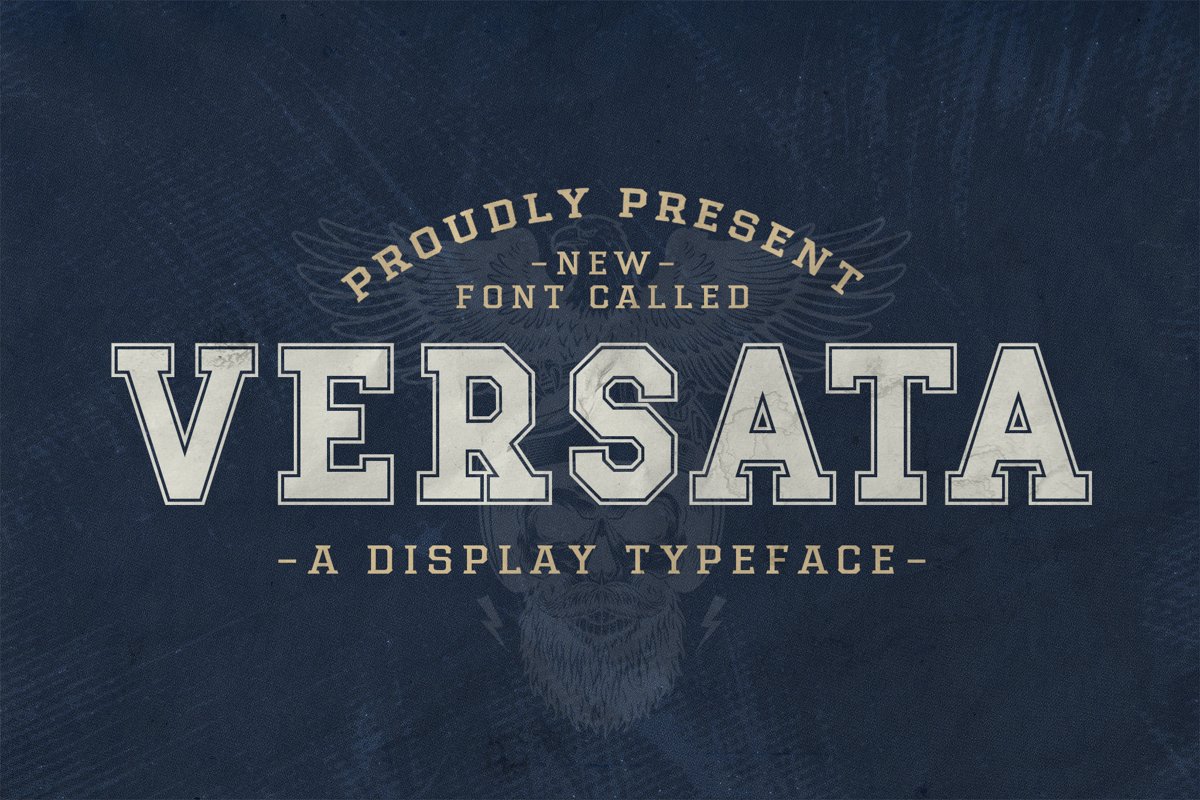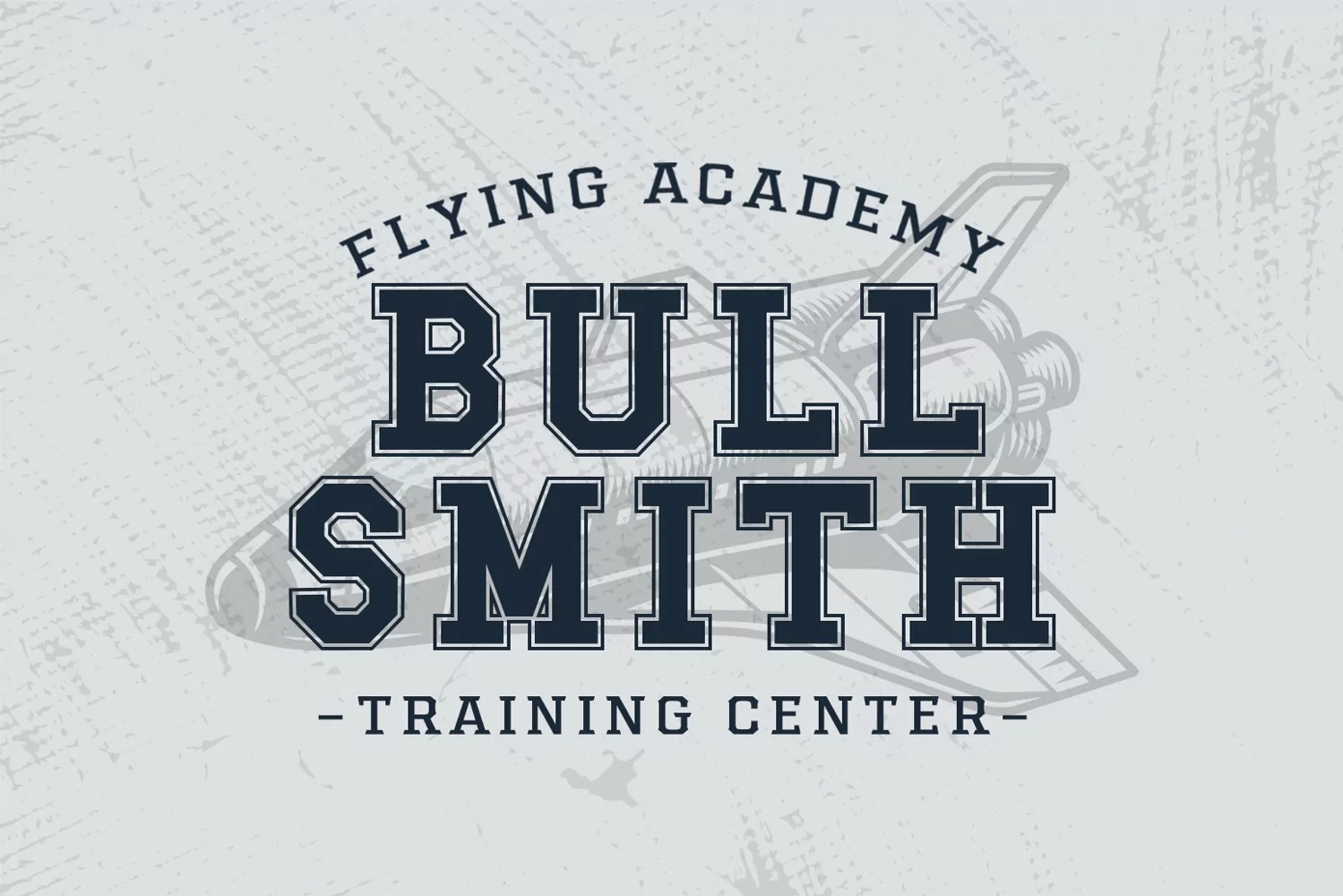
Versata is a display typeface. Perfect for display, logo, logotype, sport needs, mockup, branding, packaging, merchandise, t-shirt, badges, emblem, tittle, header, and many more.